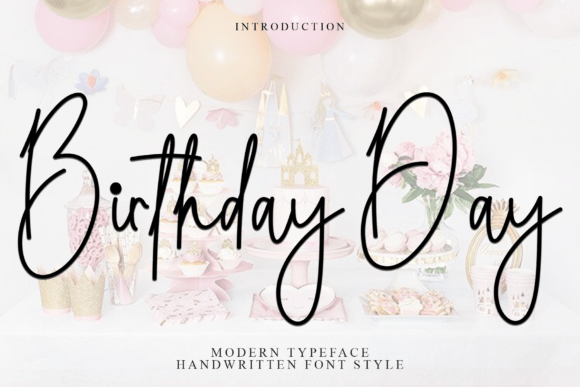
The Perfect Font for Celebrating Life’s Special Moments
Have you ever found yourself in a moment of creative bliss, staring at a blank canvas, waiting for the perfect font to bring your design to life? That’s exactly what happened to me when I stumbled upon the Birthday Day Font. Its unique strokes and soft touch immediately caught my attention, and I knew I had to learn more about it.
Birthday Day Font Key Features
- Font Family: Birthday Day Font is a unique, hand-drawn font designed specifically for celebrating birthdays.
- Unique Characteristics: Features playful, cursive-like strokes and whimsical flourishes, making it perfect for creating eye-catching birthday invitations, party decorations, and social media graphics.
Birthday Day Font Review
I recently had the chance to work with the “Birthday Day Font” and I must say, it’s a unique and fun font to play around with. Here’s what I liked and disliked about it:
- The font’s playful and celebratory vibe is perfect for birthday-related designs, such as party invitations, banners, and gift tags.
- The font’s bold and cursive lines make it easy to read and add a touch of whimsy to any design.
- The font’s versatility allows it to be used in a variety of contexts, from children’s birthday parties to adult-themed celebrations.
- The font may be too over-the-top or childish for more sophisticated or formal designs.
- The font’s cursive lines can be difficult to edit or manipulate, making it challenging to achieve precise typography.
- The font’s limited character set may not be suitable for longer blocks of text or complex designs.
The “Birthday Day Font” is a great addition to any designer’s toolkit, especially for projects that require a fun and celebratory tone. However, it may not be the best choice for more formal or complex designs. With its playful vibe and bold lines, this font is sure to bring a smile to your face and add some personality to your designs.
The Birthday Day Font is ideal for creating birthday invitations, party decorations, and other celebratory designs.